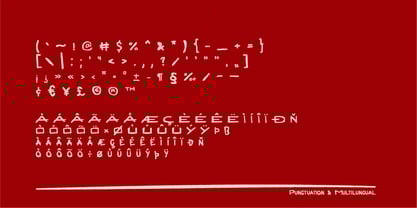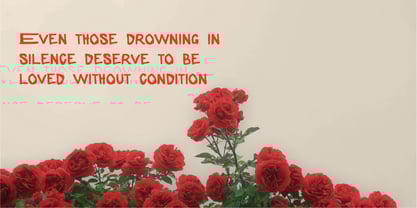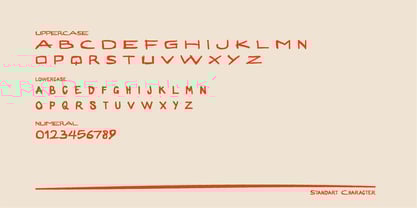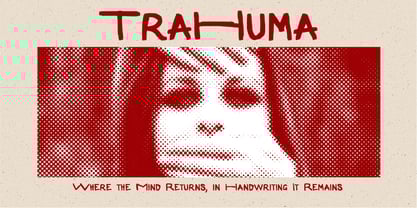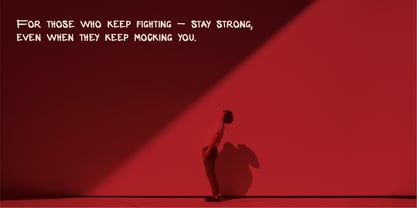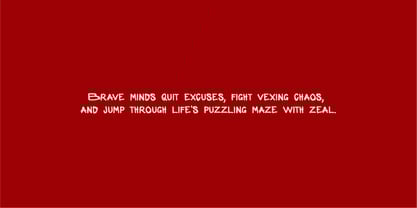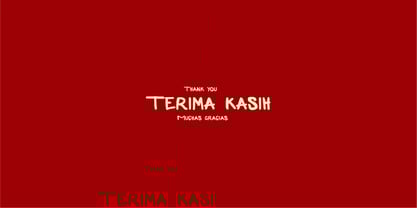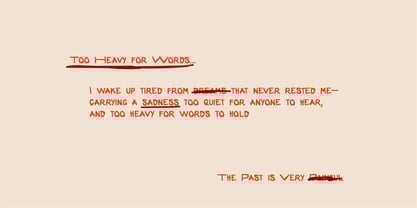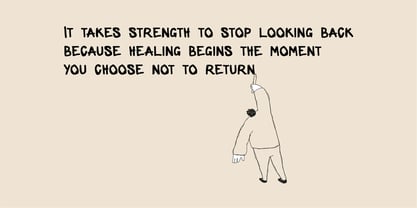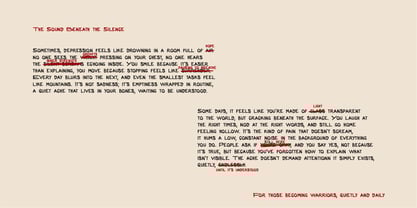
Trahuma
The Trahuma Font Family was designed by Mugi Raharjo and published by Nian Keun Studio. Trahuma contains 1 styles. More about this family
Trahuma is an expressive handwritten font inspired by raw emotions and untold stories. Its imperfect strokes and intense visual style bring a sense of depth and vulnerability, making it ideal for projects that explore trauma, mental health, and human resilience.
This font is designed for bold statements—perfect for posters, editorial layouts, album covers, and social media graphics that need an authentic and dramatic touch. Each letter is crafted to convey honesty and intensity while maintaining readability.
Features:
✔ Expressive handwritten style with emotional depth
✔ Ideal for posters, music covers, and editorial art
✔ Bold presence with raw and imperfect strokes
✔ Great for mental health campaigns and awareness projects
TRAHUMA is not just a font—it’s a voice for the unspoken. Let your design speak with authenticity and power.